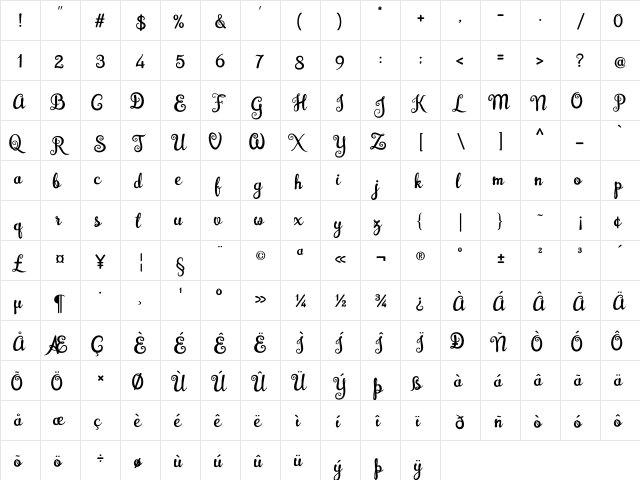
Brazilian Script Fill Regular
| Foundry | darwinoo |
| Designer | darwinoo |
Design Context for Brazilian Script Fill Typeface
Brazilian Script Fill brings a calligraphic fluidity to the page — its connecting strokes and expressive curves give it an unmistakably human quality.
Font Pairing: Combine Brazilian Script Fill with a simple geometric sans for maximum contrast — the tension between flowing curves and clean structure is a classic typographic pairing.
Pro Tip: Use Brazilian Script Fill for short runs of text — names, titles, or taglines. Extended body copy in script faces tires the eye quickly.